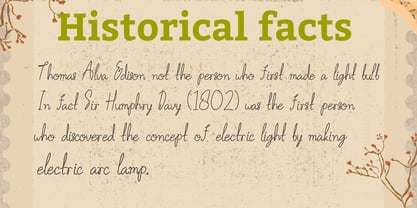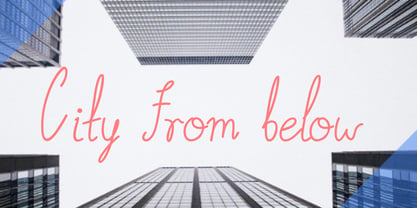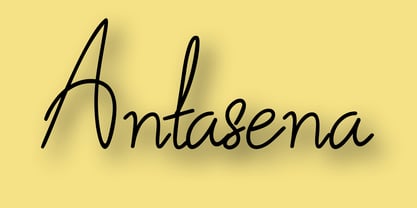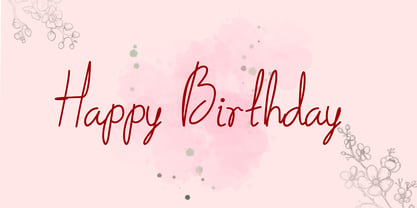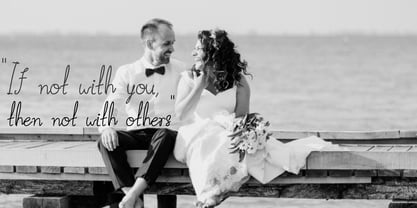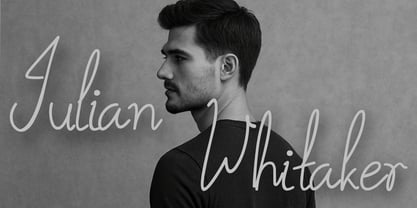
Antasena
by Eroane Creative
The Antasena Font Family was designed by Erick Rismawan and published by Eroane Creative. Antasena contains 1 styles. More about this family
Antasena is a stylish script handwriting font that captures the beauty of natural pen strokes. Designed with smooth curves and flowing lines, it brings an authentic handwritten touch to any design project.
Perfect for branding, invitations, logos, packaging, and social media graphics, Antasena combines elegance with readability. Its organic style makes it versatile for both modern and classic design themes.
With its graceful flow and carefully balanced letterforms, Antasena adds personality and charm, making your text stand out with a unique handwritten feel.
Designers: Erick Rismawan
Foundry: Eroane Creative